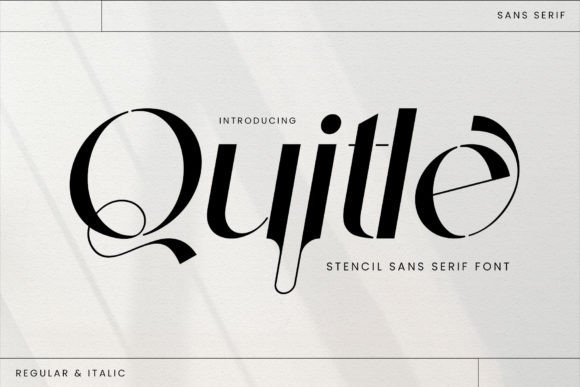
Introducing Quitle Font, the ultimate choice for all your industrial design needs. Created by Slide Shoot, this sans serif font is a game-changer in the world of typography. With its elegant and smooth combined typeface of regular and italic sans serif font, Quitle Font is sure to make a lasting impression.
One of the standout features of Quitle Font is its beautiful character. This font has a unique charm that captivates the eyes and adds a touch of sophistication to any design. Whether you're creating invitation cards, company logos, movie titles, business cards, book titles, brand names, or any other design project, Quitle Font fits perfectly.
What sets Quitle Font apart from the rest is its subtle yet powerful aura of elegance. The stylish alternations and ligatures give this font an edge that will elevate your designs to new heights. Every letter and glyph has been meticulously crafted to ensure a seamless and visually pleasing experience.
But that's not all! Quitle Font is PUA encoded, meaning you have easy access to a wide range of amazing glyphs and ligatures. This font gives you the freedom to unleash your creativity and experiment with unique combinations that will leave a lasting impression on your audience.
In a world where first impressions matter, Quitle Font is your secret weapon. Its versatility and adaptability make it the perfect choice for a wide range of projects. Whether you're designing for a corporate event, a movie premiere, or a book cover, Quitle Font will make your work stand out from the crowd.